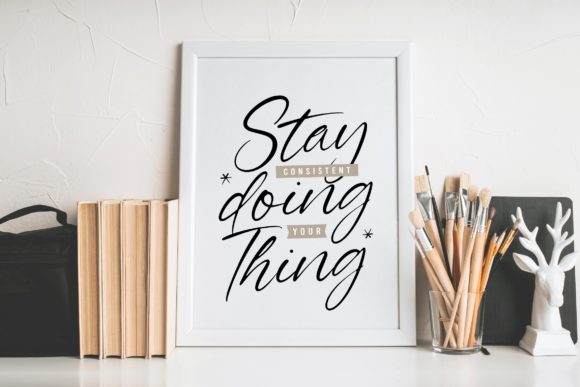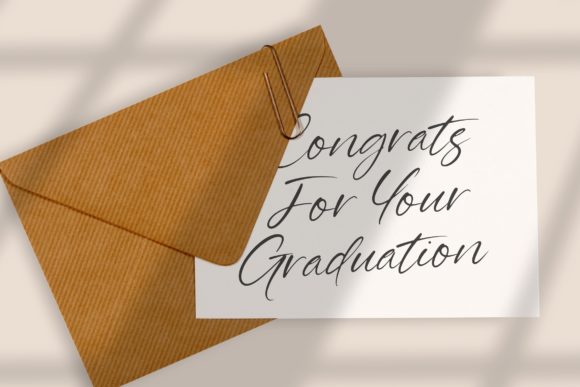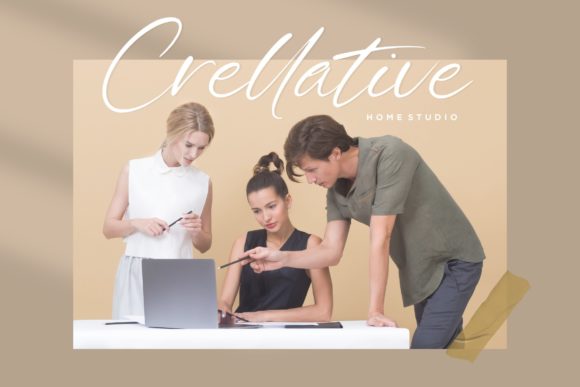
Introduction to Energetica Font
Energetica is a delicate, elegant and flowing handwritten font.
It has beautiful and well balanced characters and as a result, it matches a wide pool of designs Add it to your most creative ideas and notice how it makes them come alive.
Key Features of Energetica Font